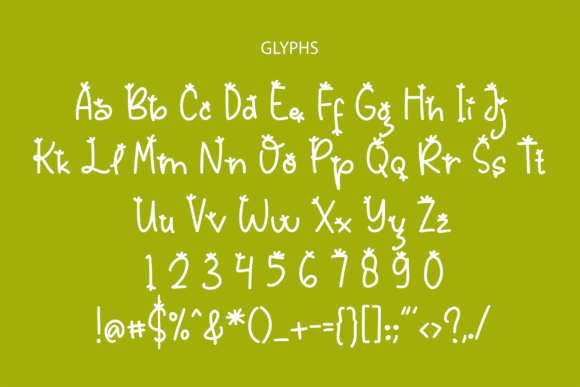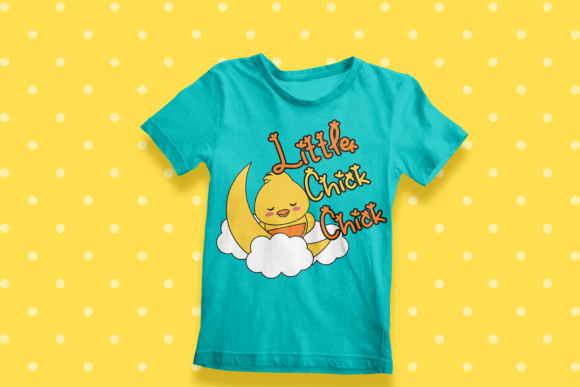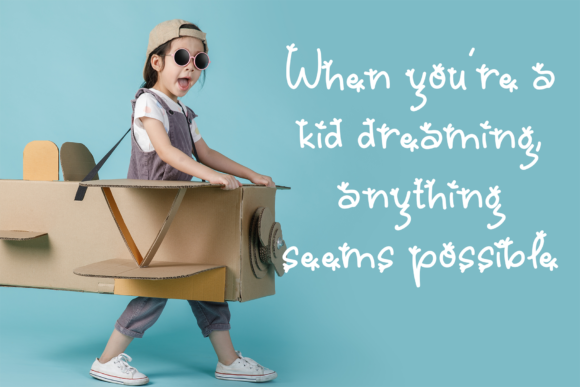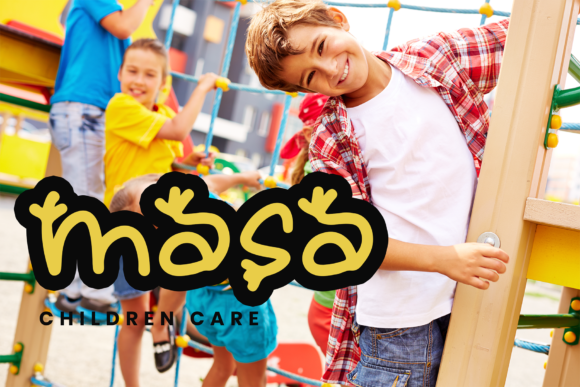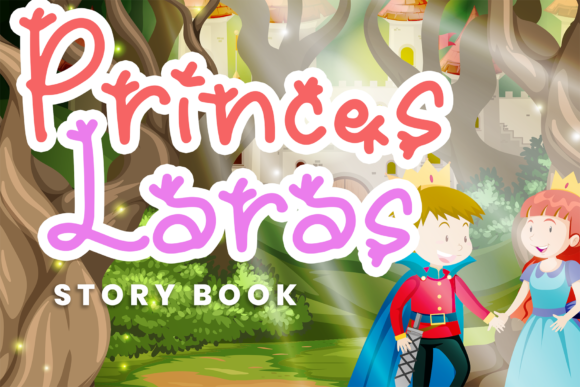
Introducing Chicko Font: The Ultimate Display Font for Joyful Designs
Are you tired of using the same old fonts in your designs? Do you want to add a touch of personality and whimsy to your creative projects? Look no further than Chicko Font, a cute and quirky display font that’s sure to bring a smile to your face. In this article, we’ll dive into the world of Chicko Font and explore how it can elevate your designs to the next level.
What is Chicko Font?
Chicko Font is a unique and playful display font that’s perfect for adding a joyful touch to your designs. With its bold and curly lines, Chicko Font is sure to make a statement in any project. Whether you’re designing a logo, creating a social media graphic, or crafting a handmade card, Chicko Font is the perfect choice for adding a personal touch.
Features of Chicko Font
- Cute and Quirky Design: Chicko Font features a one-of-a-kind design that’s both cute and quirky. Its playful lines and curves make it perfect for designs that require a touch of personality.
- Display Font: Chicko Font is a display font, making it perfect for headlines, titles, and other prominent text elements in your designs.
- Easy to Read: Despite its playful design, Chicko Font is easy to read, making it perfect for use in a variety of design projects.
- Versatile: Chicko Font can be used in a wide range of design projects, from digital graphics to handmade crafts.
How to Use Chicko Font in Your Designs
Chicko Font is incredibly easy to use in your designs. Here are a few ideas to get you started:
- Logos and Branding: Use Chicko Font to create a unique and memorable logo for your business or brand.
- Social Media Graphics: Add a touch of personality to your social media graphics with Chicko Font.
- Handmade Crafts: Use Chicko Font to add a personal touch to your handmade crafts, such as cards, scrapbook pages, and other paper crafts.
- Digital Art: Incorporate Chicko Font into your digital art projects, such as illustrations and mixed media designs.
Why Choose Chicko Font?
With so many fonts to choose from, why should you choose Chicko Font? Here are just a few reasons:
- Unique Design: Chicko Font features a unique and one-of-a-kind design that’s sure to make your designs stand out.
- Easy to Use: Chicko Font is incredibly easy to use, even for designers who are new to working with fonts.
- Versatile: Chicko Font can be used in a wide range of design projects, making it a great addition to any designer’s toolkit.
Tips for Getting the Most Out of Chicko Font
Here are a few tips for getting the most out of Chicko Font:
- Experiment with Different Sizes: Chicko Font looks great in a variety of sizes, from small and delicate to large and bold.
- Pair with Other Fonts: Try pairing Chicko Font with other fonts to create a unique and eye-catching design.
- Use in Combination with Images: Chicko Font looks great when used in combination with images and other graphics.
Chicko Font is a unique and playful display font that’s perfect for adding a joyful touch to your designs. With its bold and curly lines, Chicko Font is sure to make a statement in any project. Whether you’re a designer, crafter, or DIY enthusiast, Chicko Font is a great addition to your toolkit. So why wait? Download Chicko Font today and start adding a touch of personality to your designs!
Key Takeaways
- Chicko Font is a cute and quirky display font that’s perfect for adding a joyful touch to your designs.
- Chicko Font features a unique and one-of-a-kind design that’s sure to make your designs stand out.
- Chicko Font is easy to use and versatile, making it perfect for a wide range of design projects.